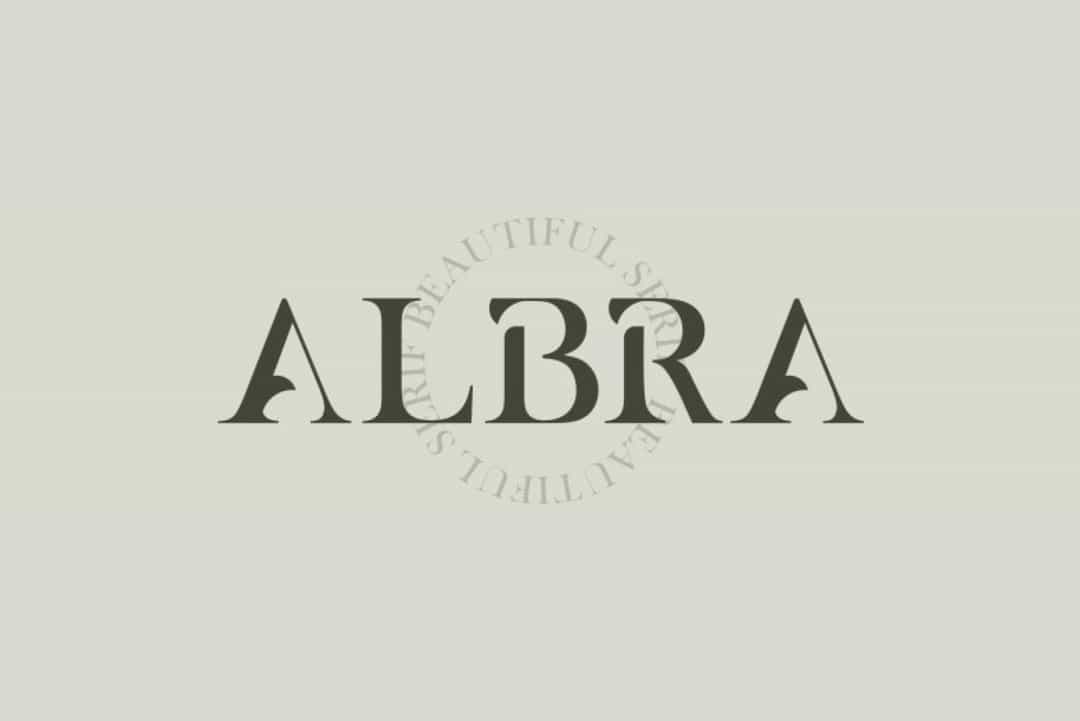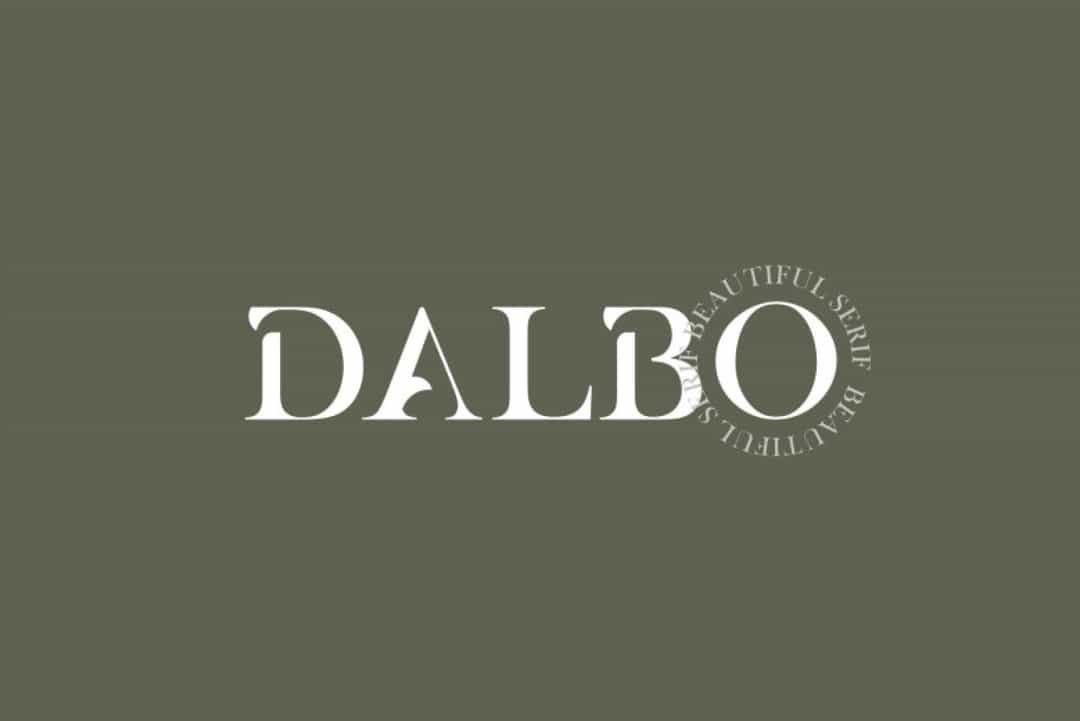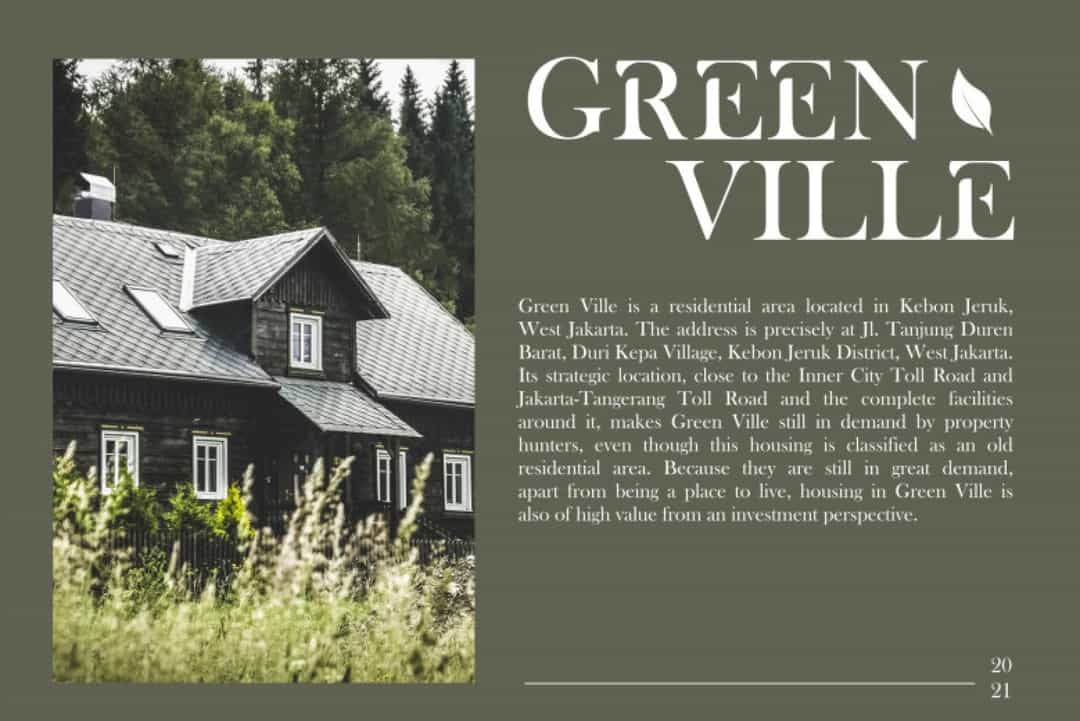
Discover Albra Font, part of the Serif collection—a versatile and unique font perfect for adding a personal touch to your projects. Download it for free and enjoy crafting designs with style, from invitations to social media posts. This font is available exclusively for personal use, giving you the freedom to create without limits. Unlock your creativity with Albra Font today!
Albra Serif Font is ideal for use in various projects: fashion magazines, logos branding, photography invitations and wedding invitations as well as quotes blog headers posters advertisements books postcards websites and more.